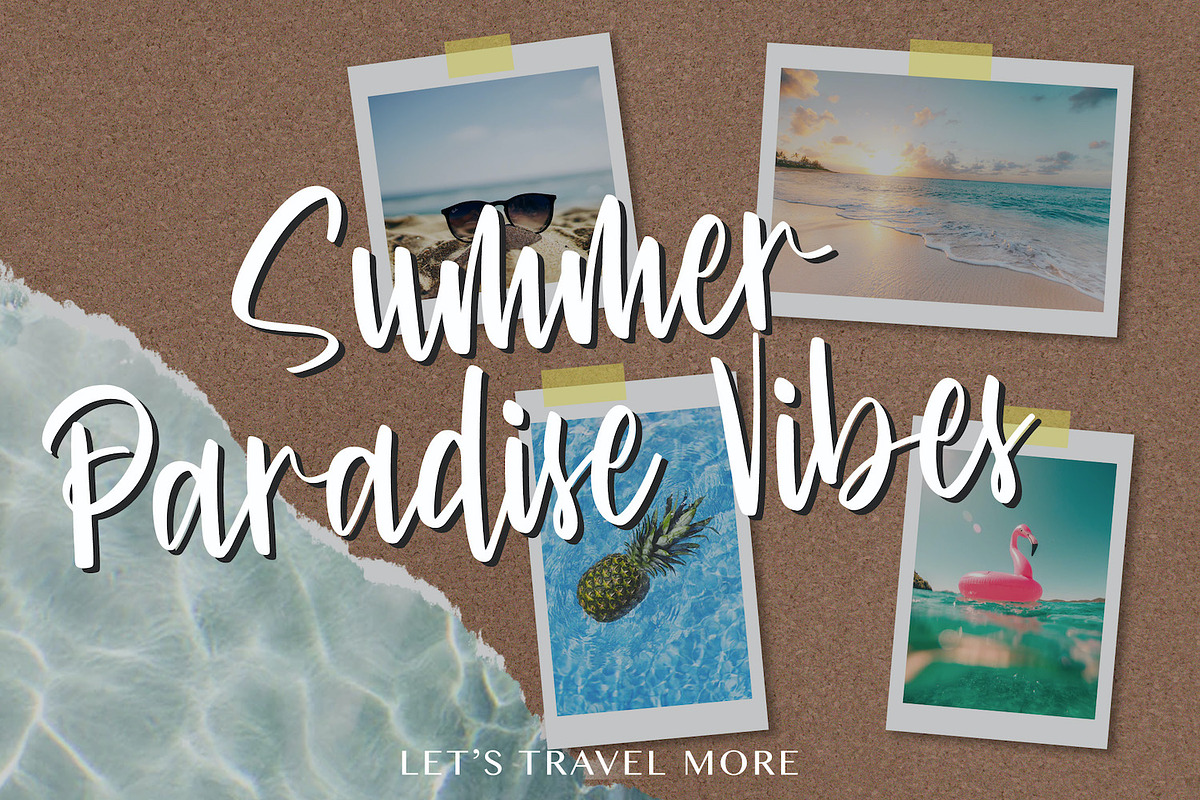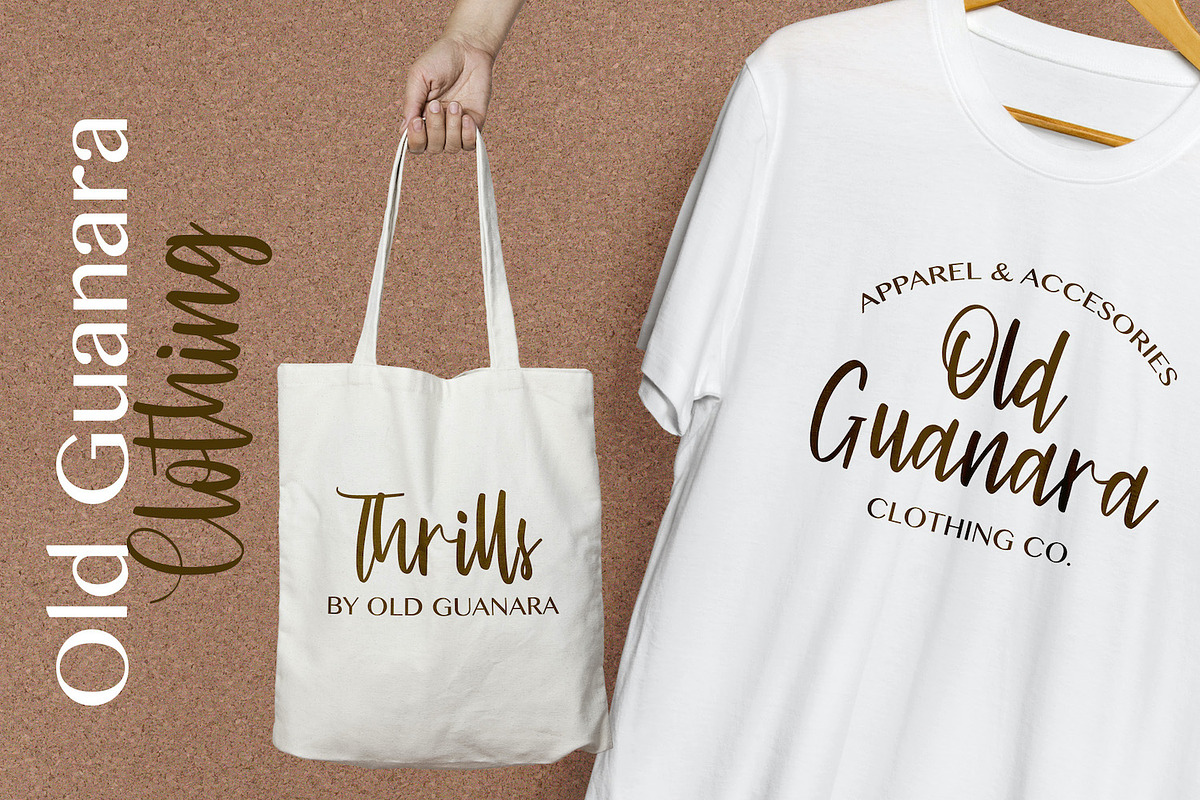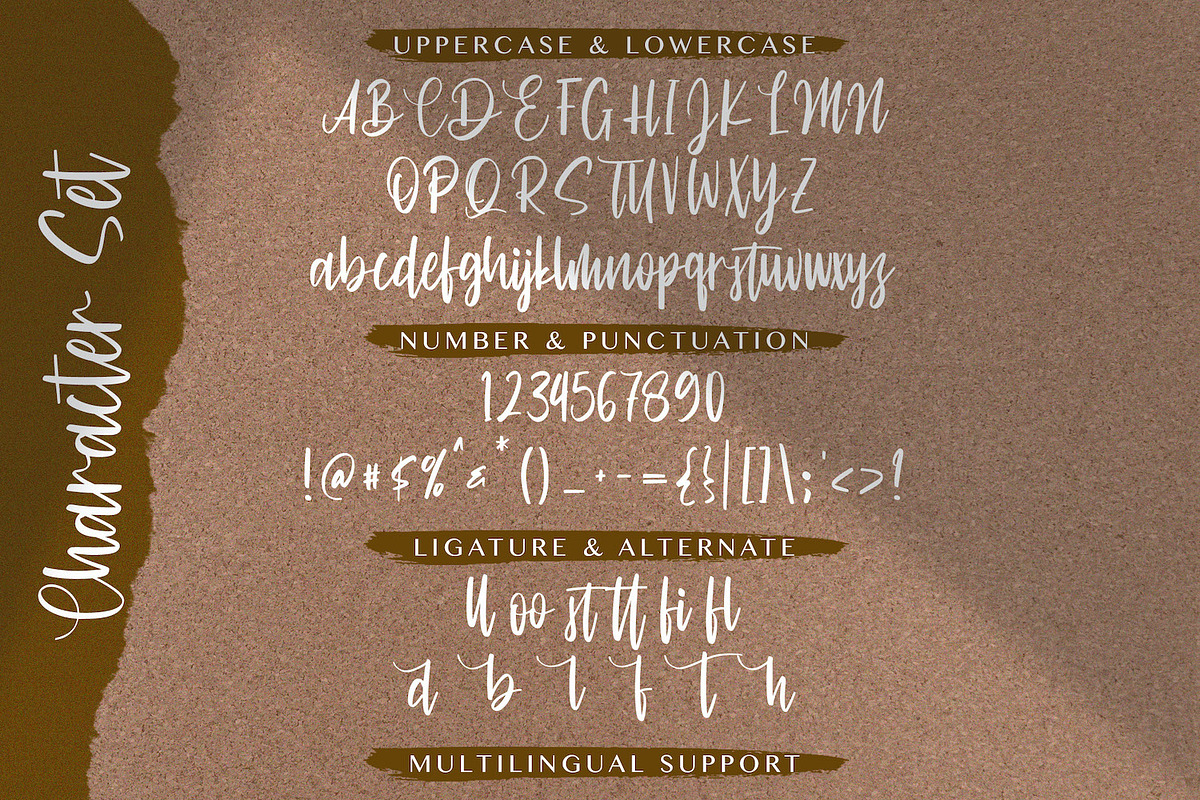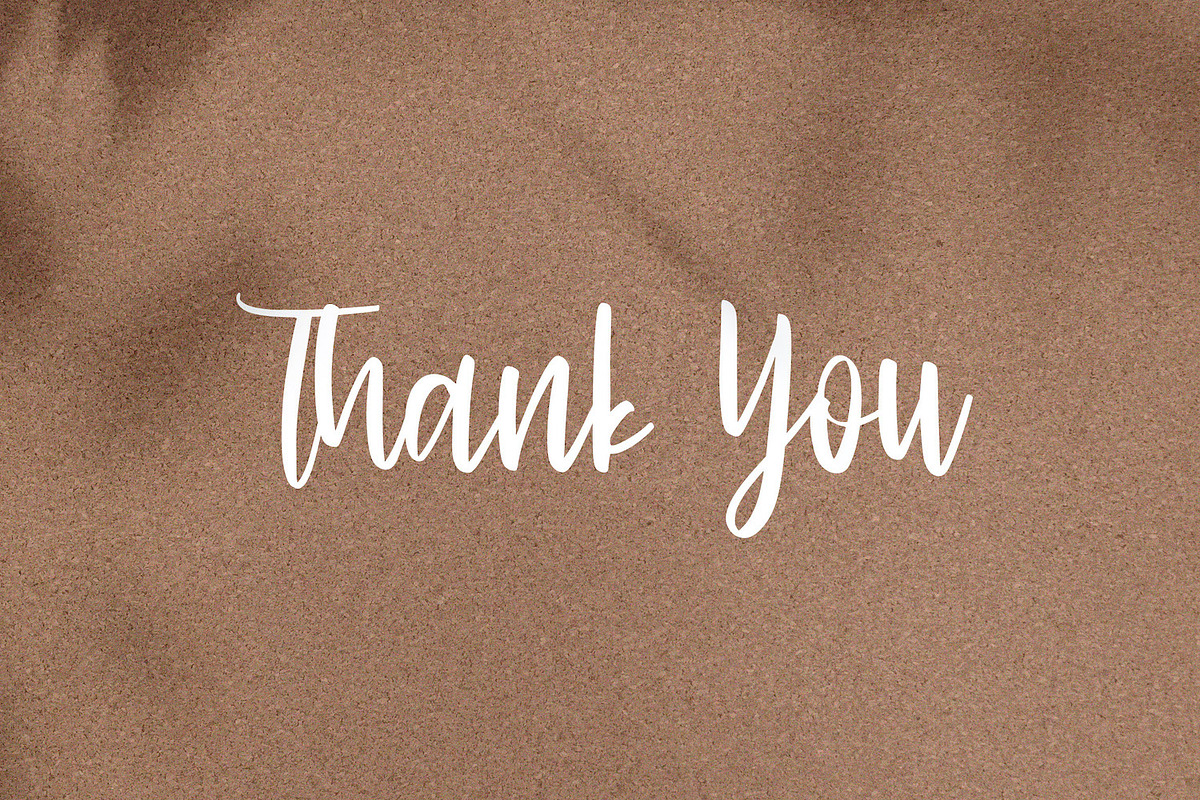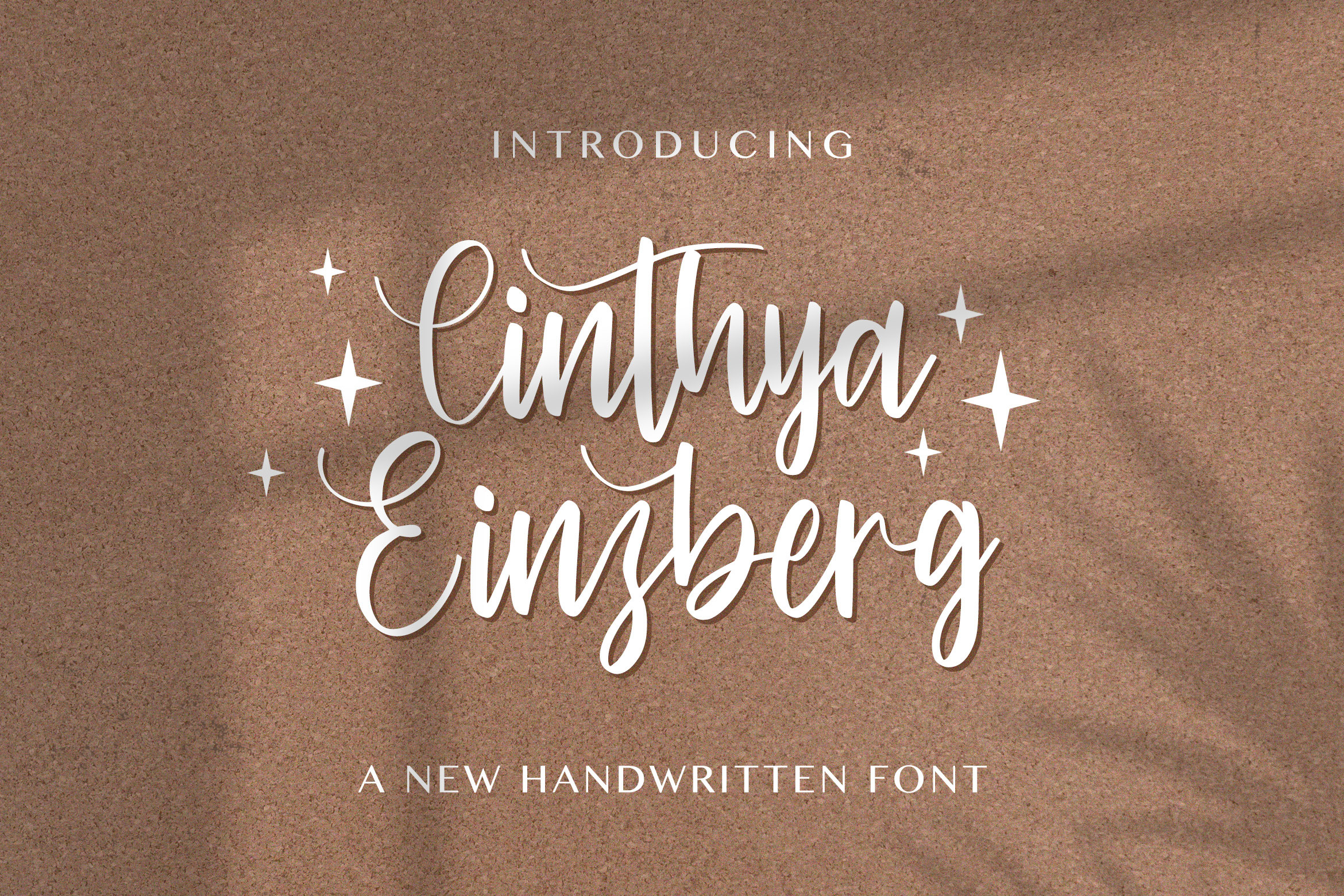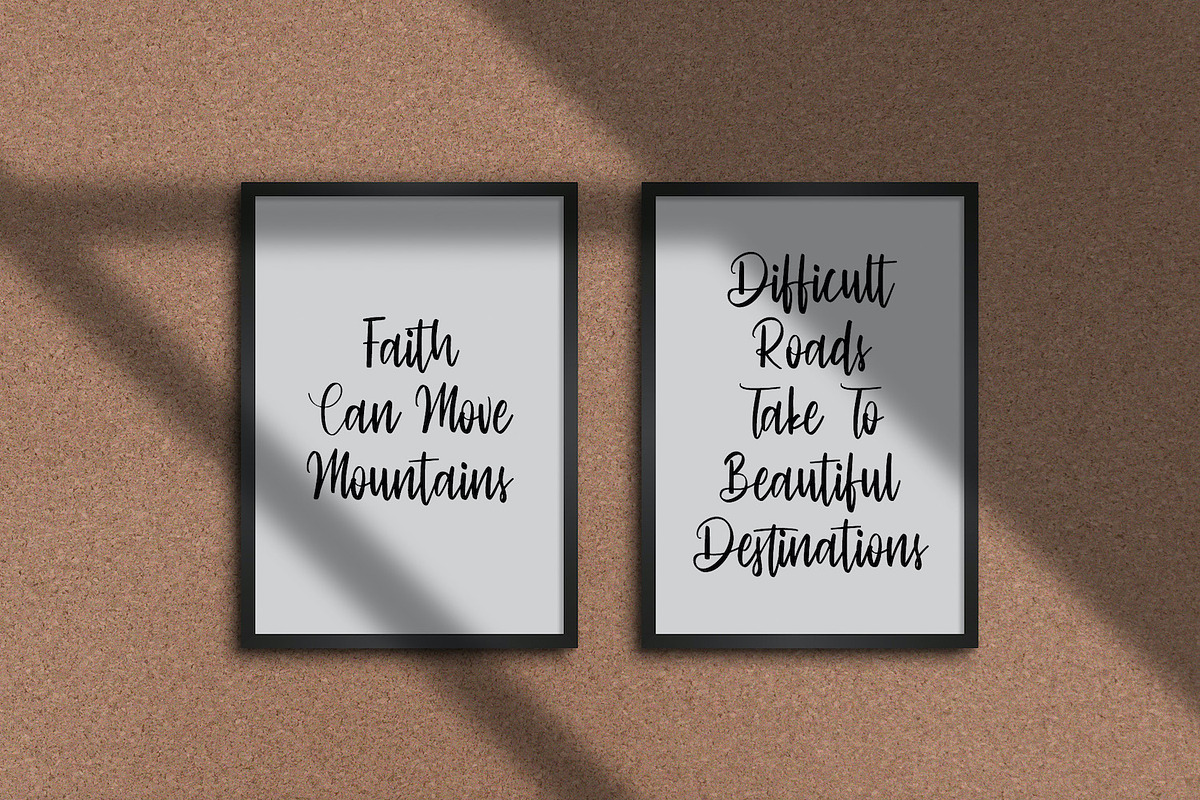
Cinthya Einzberg - Handwritten Font
Introducing Cinthya Einzberg - Handwritten Font
Cinthya Einzberg is a new handwritten font, created with the help of a beautiful brush pen. Fall in love with its incredibly versatile style and use it to create gorgeous wedding invitations, beautiful stationary art, eye-catching social media posts, and much more!